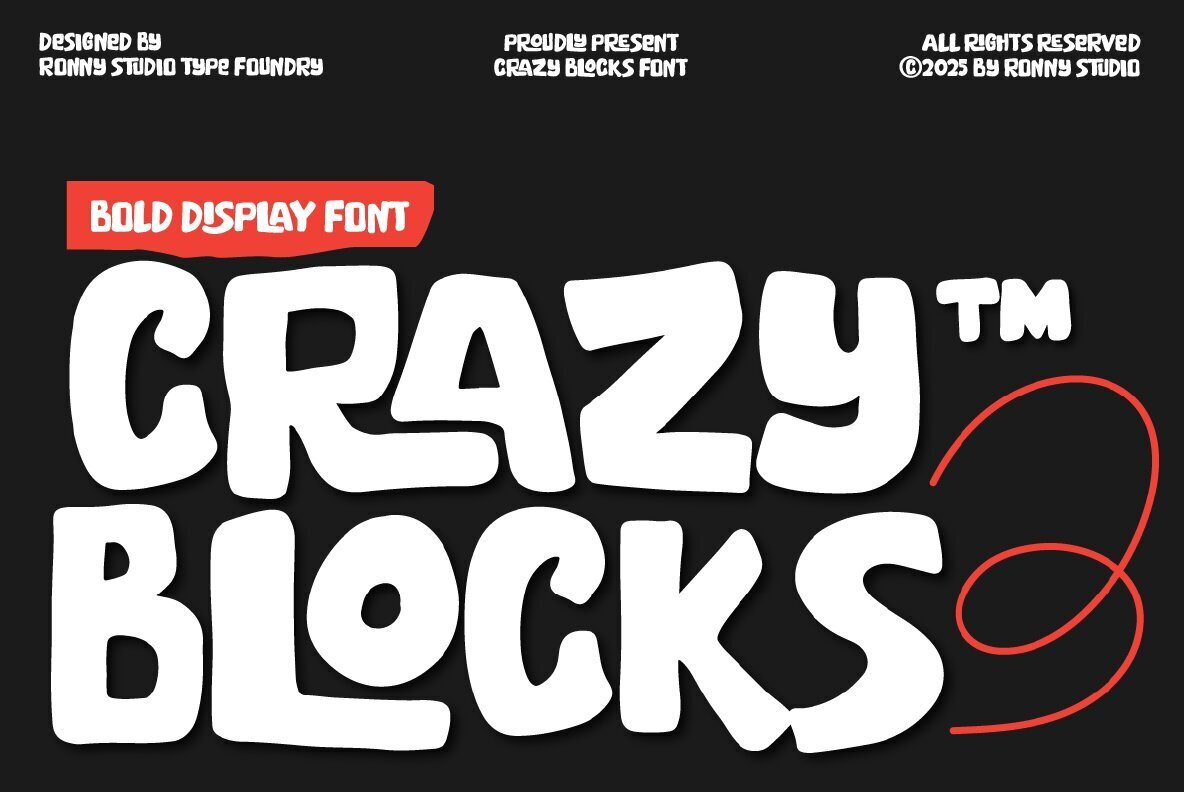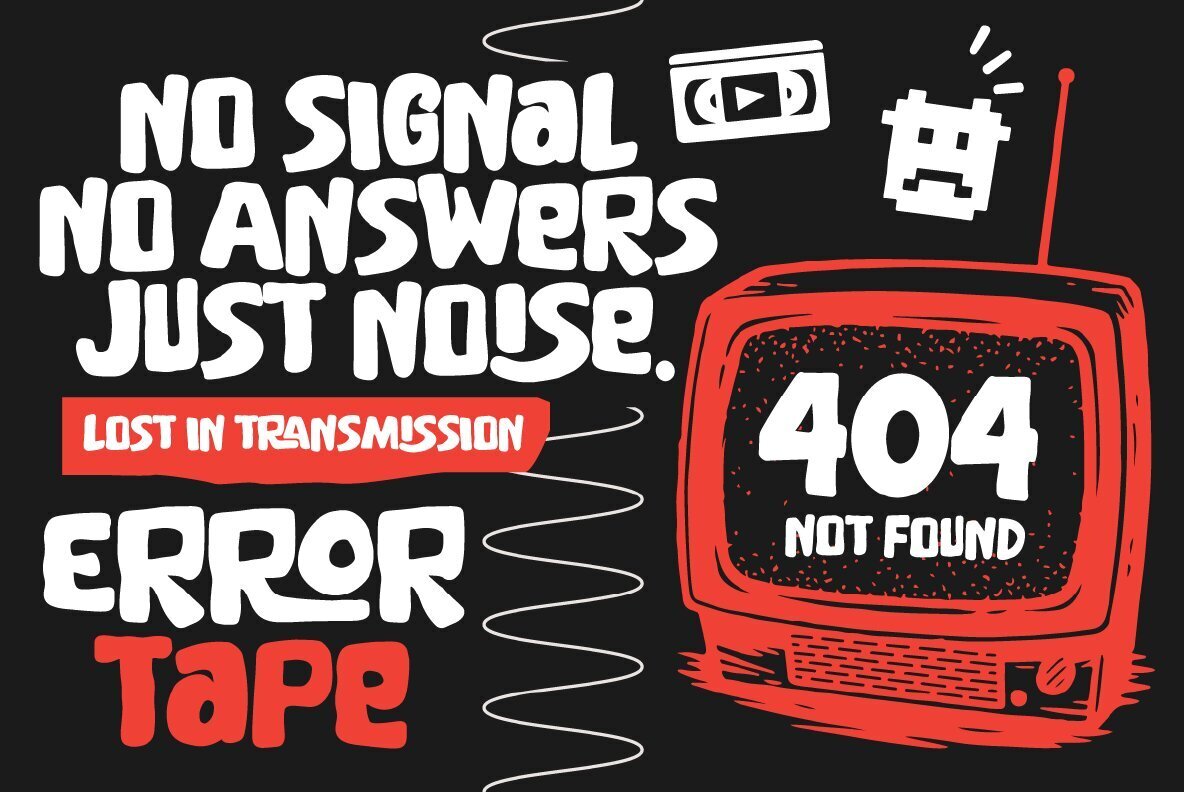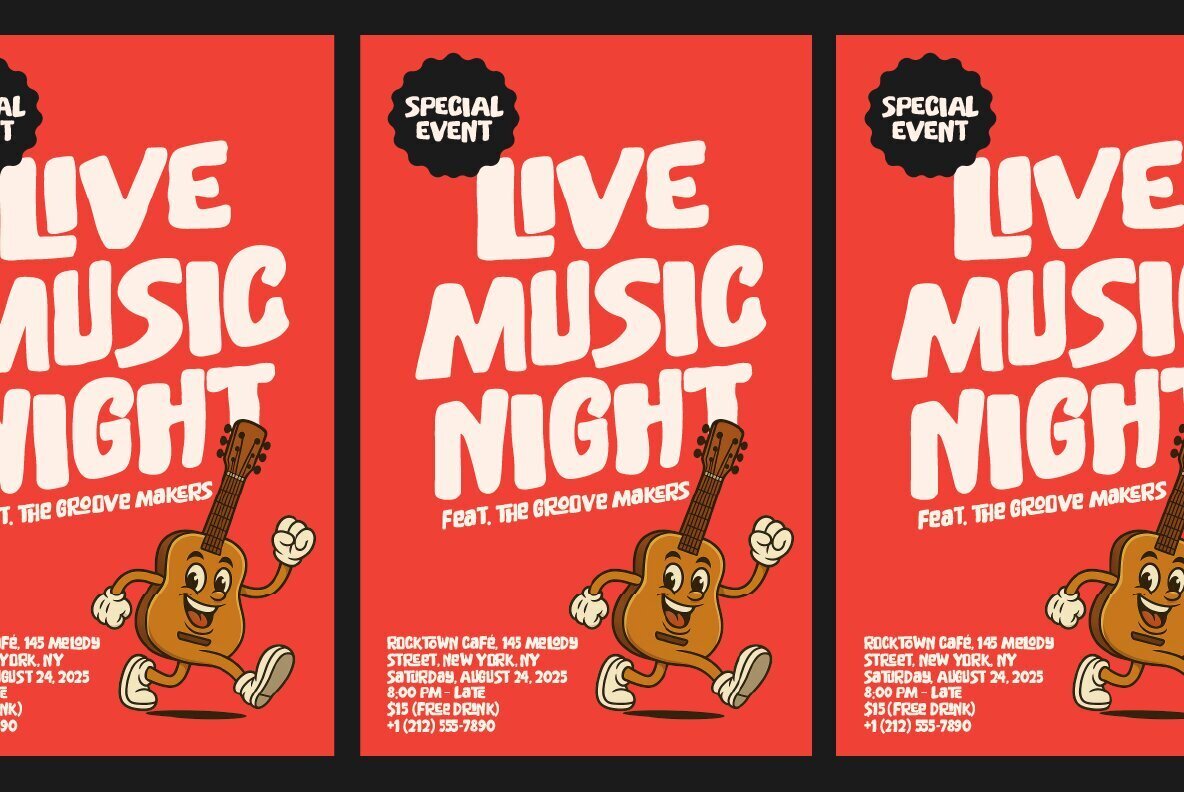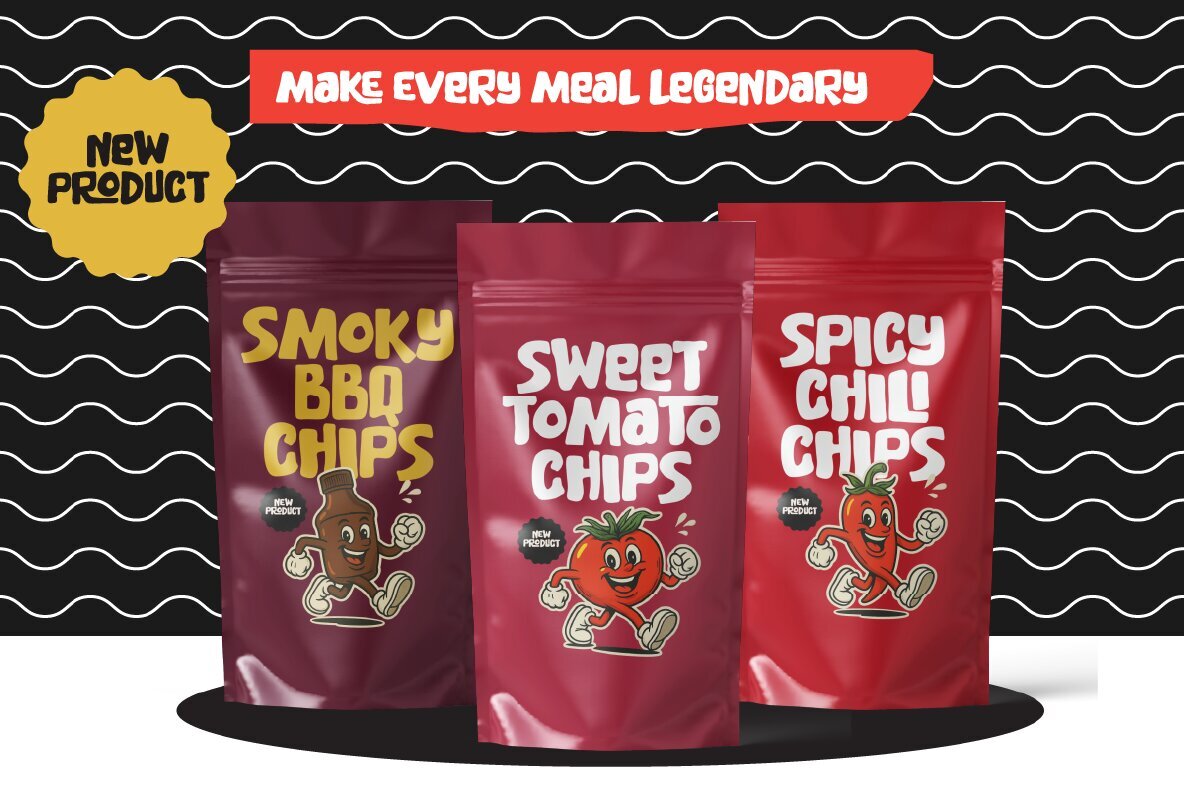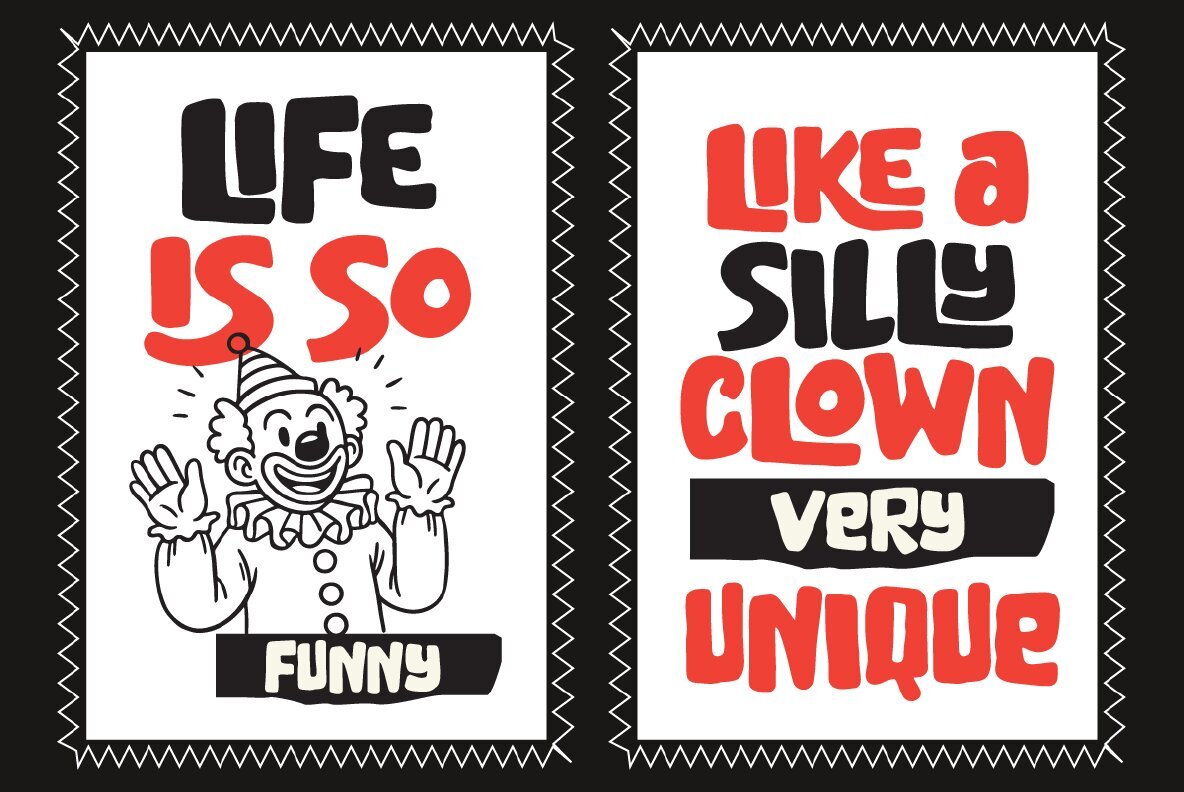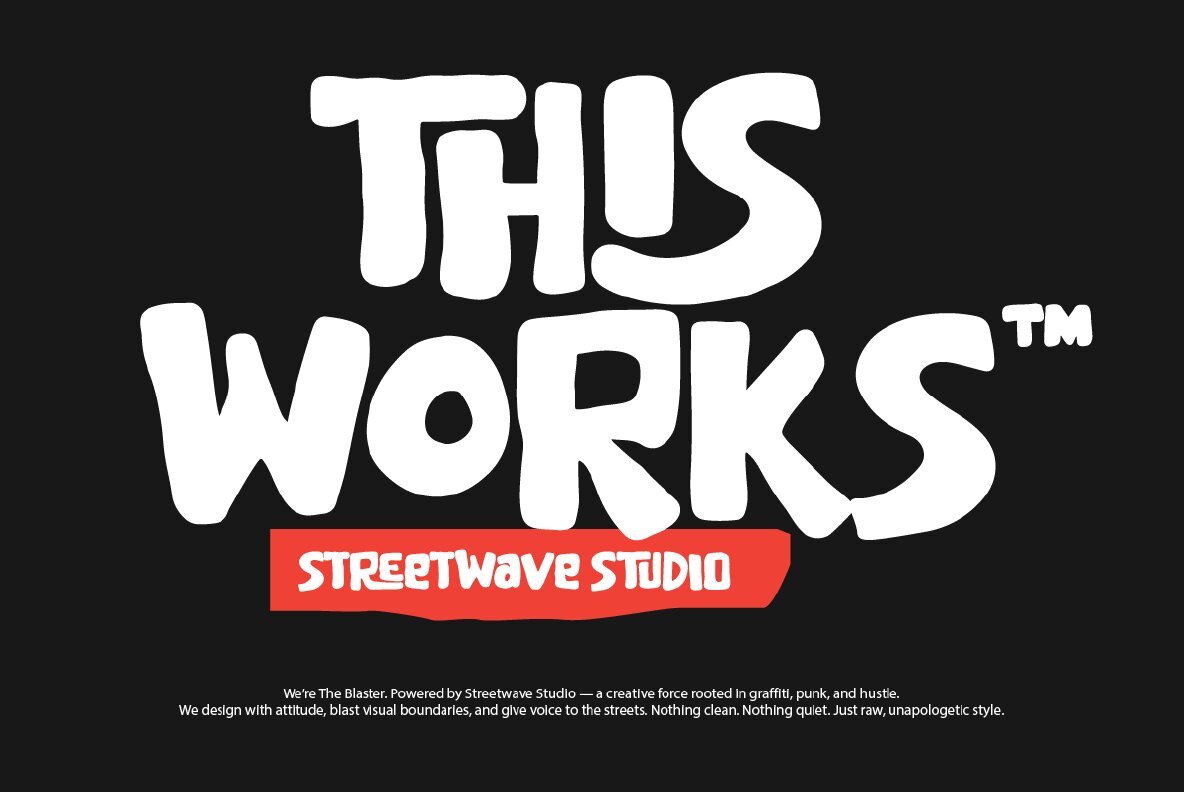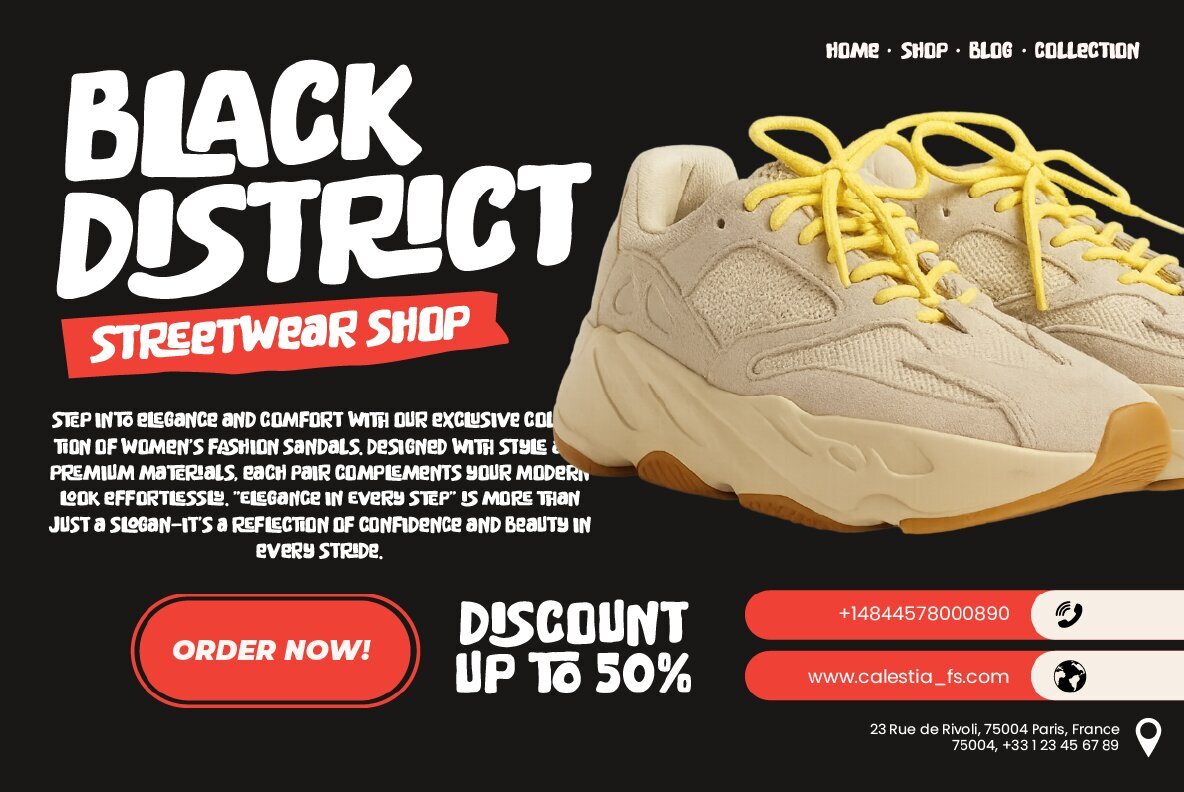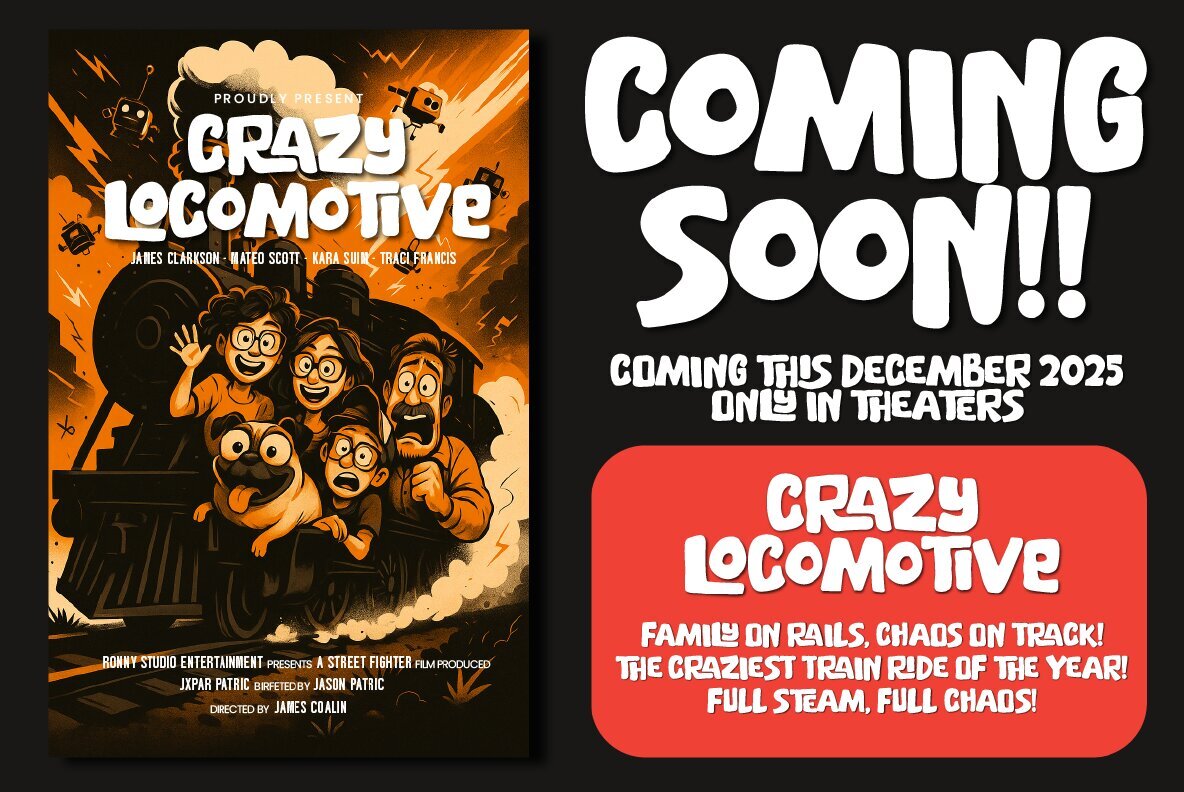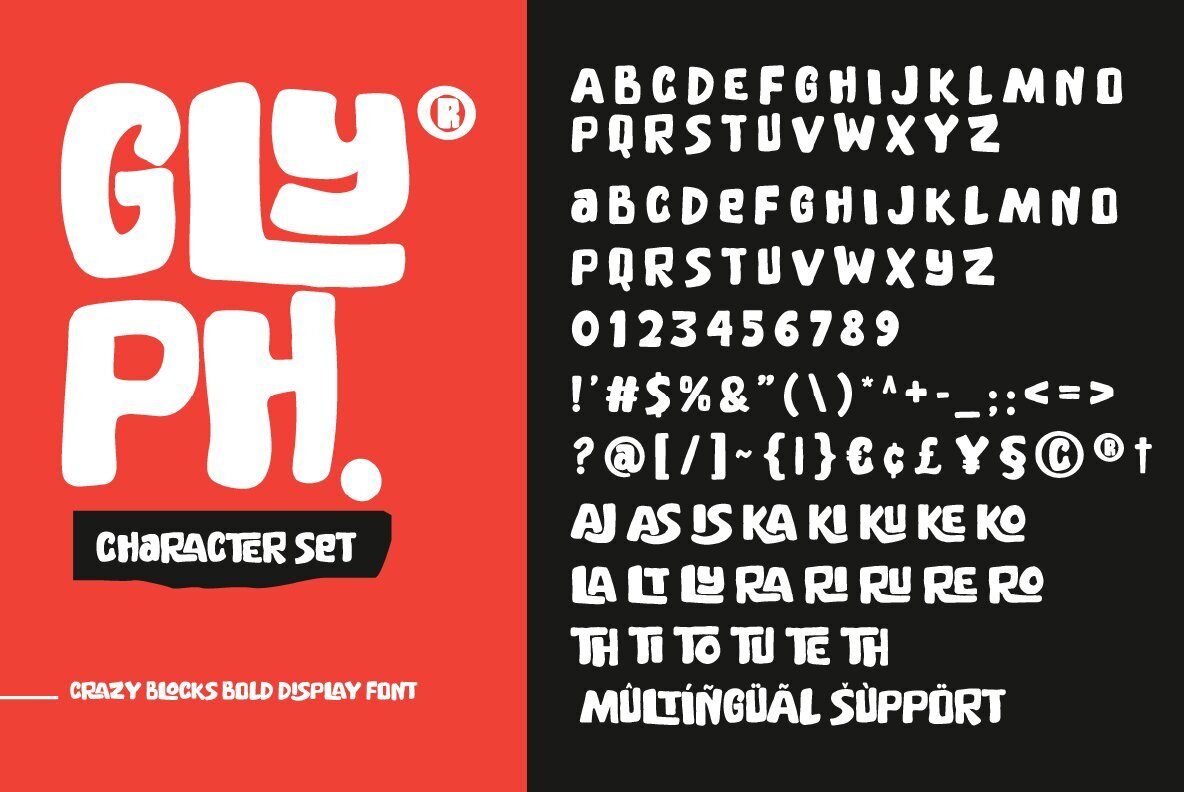
Crazy Blocks Font
Crazy Blocks
Crazy Blocks brings a bold, chunky presence to any design with its lively and distinctive letterforms. The playful shapes offer a modern twist on retro-inspired styles, making it a striking choice for visual projects that demand attention. The font’s handcrafted details and unique character infuse designs with a memorable identity, standing out in both digital and print settings. Its versatility fits a wide range of uses, from event promotions to brand visuals. Multilingual support and extensive glyph options, including ligatures and alternates, give flexibility for both simple and complex design needs. The PUA encoding ensures easy access to special features, paving the way for seamless creative workflows.Crazy Blocks Bold Display Font